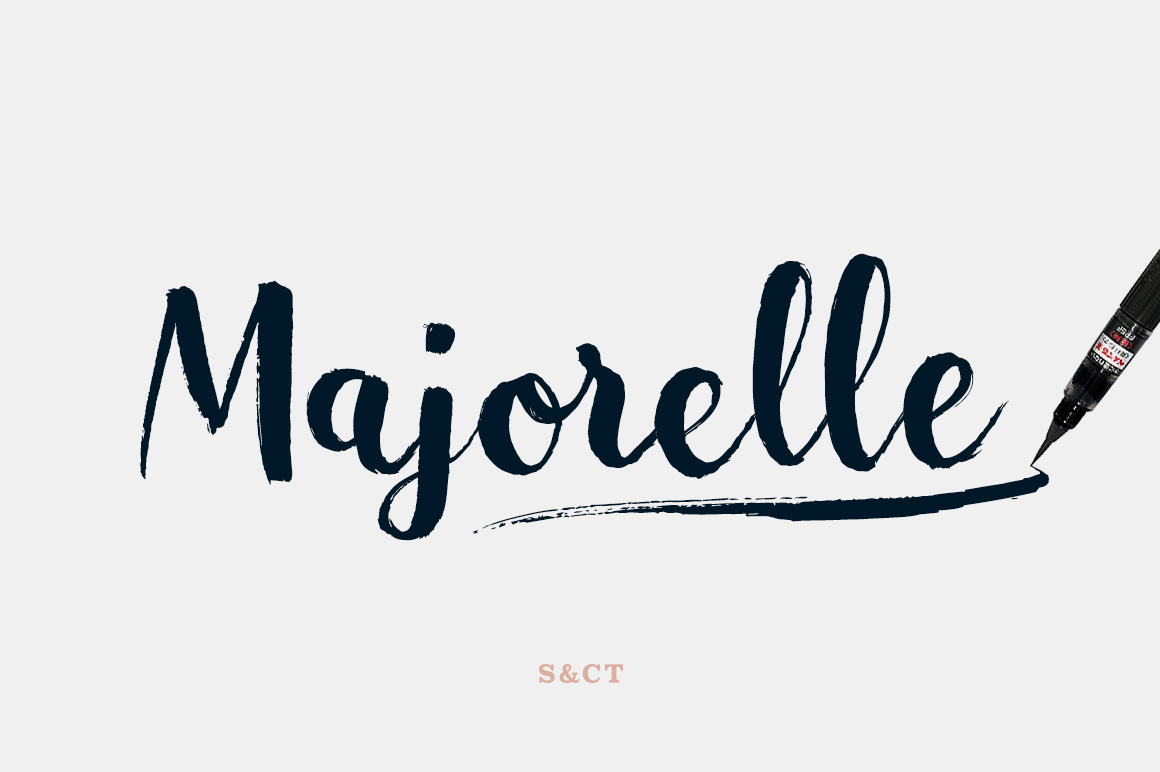
Majorelle Font Collection
Majorelle is a textured script font designed by Fanny Coulez and Julien Saurin in Paris. This finely balanced font was designed to be easy to read, and because it’s just as important, easy to use.
Majorelle includes alternates and OpenType ligatures that you can use to improve your designs and make them look natural and friendly. With a lot of extras like swashes, keywords, or splatters, this organic script could be used for any project that needs a warm and informal touch.